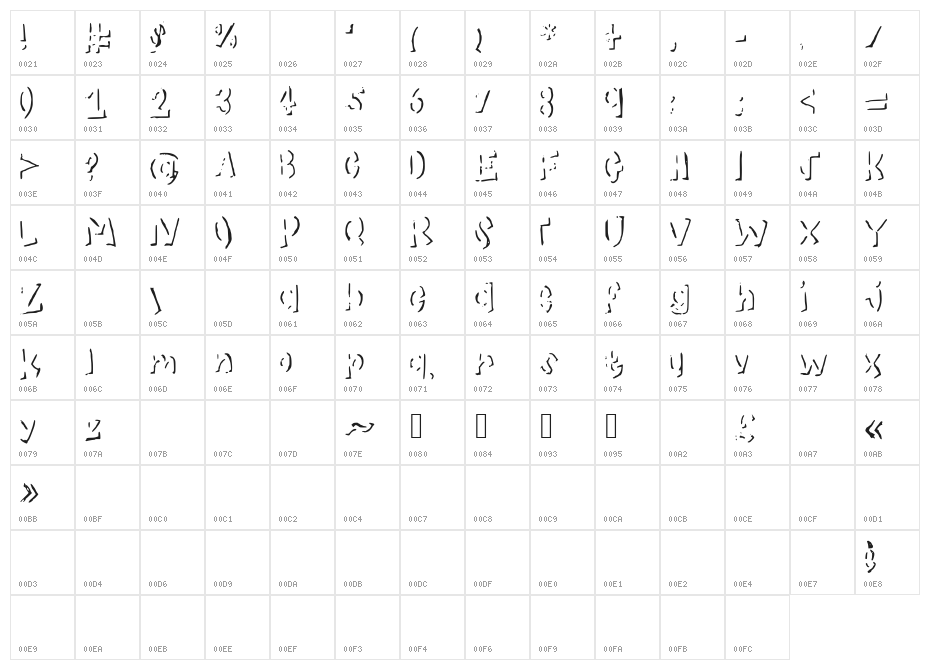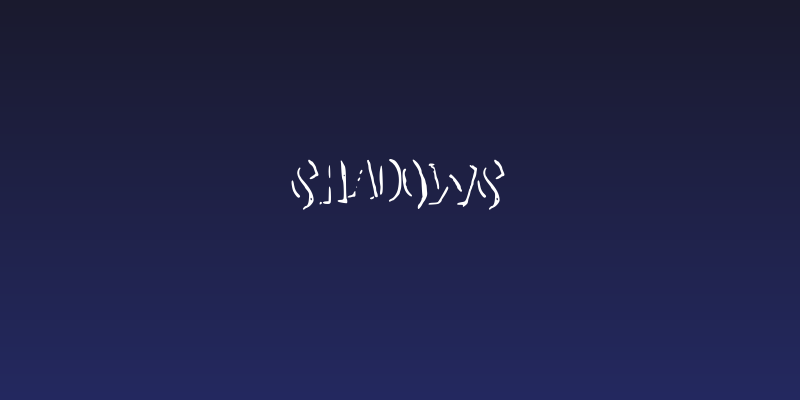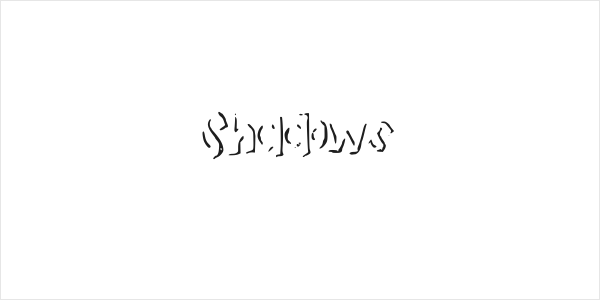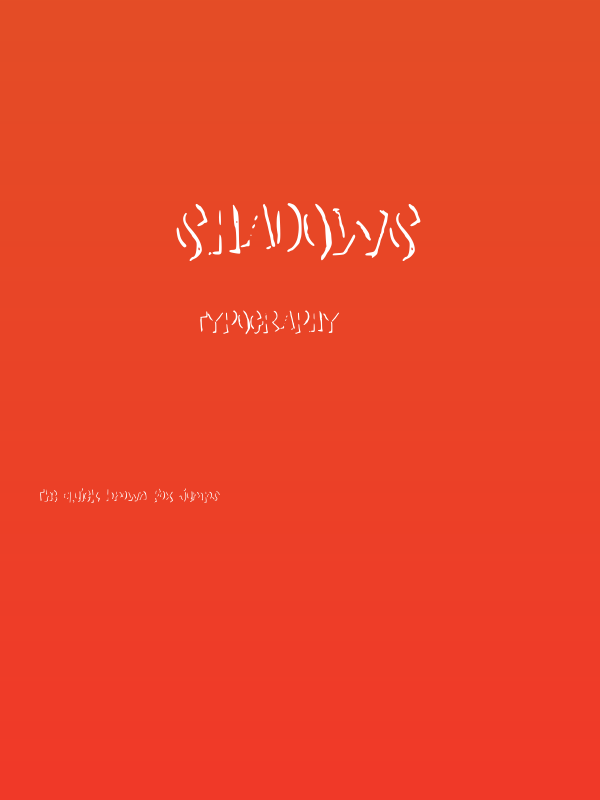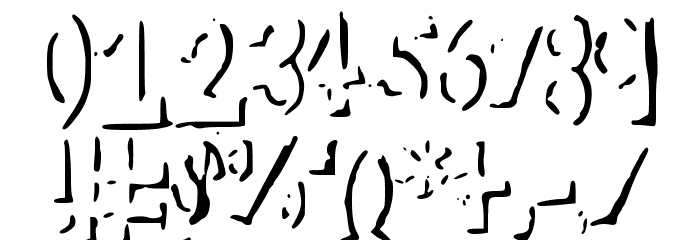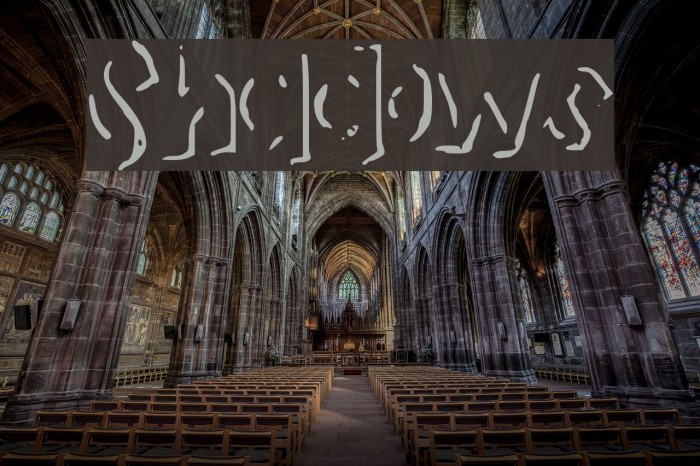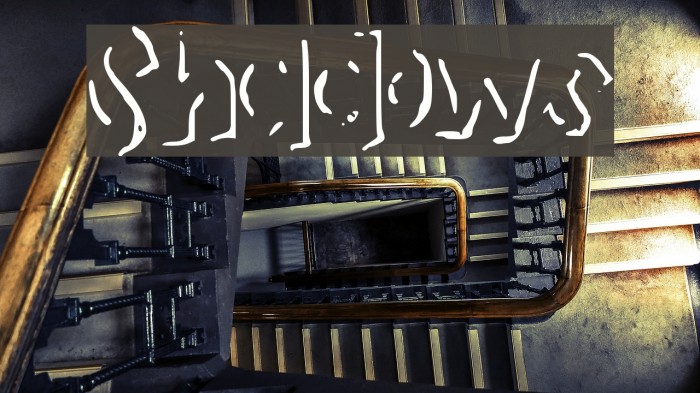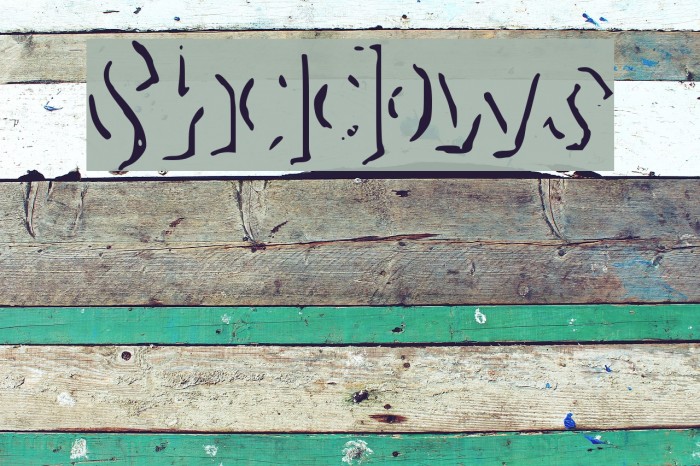
Shadows Font
Shadows Description
This font features a distinct stencil-like appearance with a fragmented, shadowy effect. The characters are bold and have a rugged, industrial feel, with portions of each letter appearing as if they have been cut out or eroded. This gives the font a unique, edgy aesthetic that is both eye-catching and unconventional. The uppercase and lowercase letters maintain a consistent style, with sharp angles and a sense of movement. Numbers and special characters follow the same design principles, ensuring uniformity across all glyphs. The overall look is reminiscent of urban street art or military stencils, making it ideal for projects that require a bold, impactful statement.
| Overall Style | Modern, Industrial |
| Proposed Projects | Ideal for urban-themed designs, posters, album covers, and branding that requires a bold, edgy look. |